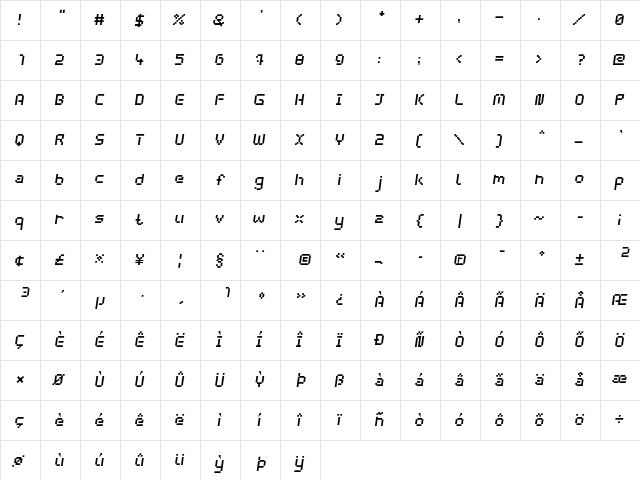
Complete webpixel bitmap Medium-Italic glyph index. Displaying only characters natively supported by webpixel bitmap Medium-Italic font.
webpixel bitmap is rooted in pixel-grid construction, making it a natural fit for game UI, retro computing aesthetics, and digital nostalgia projects. The slanted form adds forward momentum and visual energy.